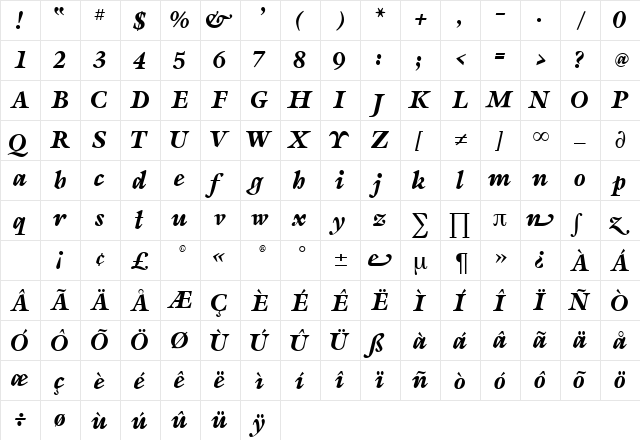
Sevilla Regular
Design Context for Sevilla Typeface
Sevilla offers clean, dependable letterforms without strong stylistic allegiance, making it a practical choice for designers who need flexibility.